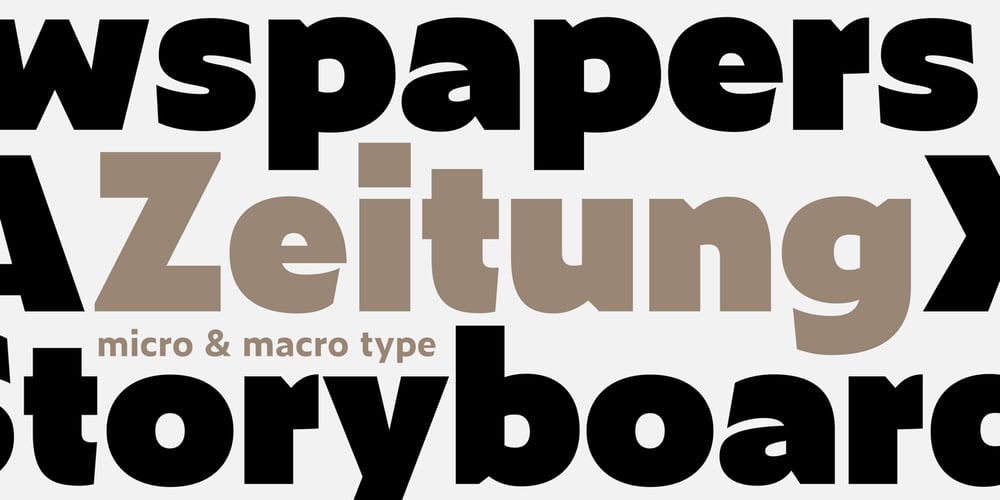
Zeitung Pro Font Family was designed by published by Underware. Zeitung Pro contains 32 styles and family package options. Zeitung is a sans serif family which works equally well on print and web. First of all: Zeitung is a sans serif made according to contemporary standards: 8 weights, romans and italics, all equipped with small caps. Lots of OpenType features, like uppercase punctuation or 5 figure styles to make sure any of your mathematical or financial charts, tables and diagrams look cool. Zeitung’s typographic palette focuses on utility and legibility, but in the farthest corners you’ll discover a rich array of flavours: punchy black weights, fashionable thin styles, carefully hand crafted true italics, distinct small caps. But Zeitung has more to offer. Its optical sizes offer the best style for each size of your text. Zeitung fonts are devided to two optical families: Zeitung Standard and Zeitung Micro. Zeitung Standard works great in most sizes, while Zeitung Micro fonts are specially made for very small sizes in print and web. Zeitung Micro fonts are perfectly legible in web, where the same technical font styles have to survive in many environments, from older browsers to most up to date mobile screens. Next to that: the lightest weights also function as grades, because they share the same metrics. This can be very handy for selecting the optimal weight for your specific situation, especially on screens or when type is printed by a newspaper press. Letters are rendered in many various ways on different screens. Maybe the interface of your next app requires a different grade than your latest website? Zeitung allows you to change the weight of your text without any further consequence for the design. That is a welcome relief during the design process. Zeitung will help to bring your message across in many different circumstances, from large text in print to small type on screens.